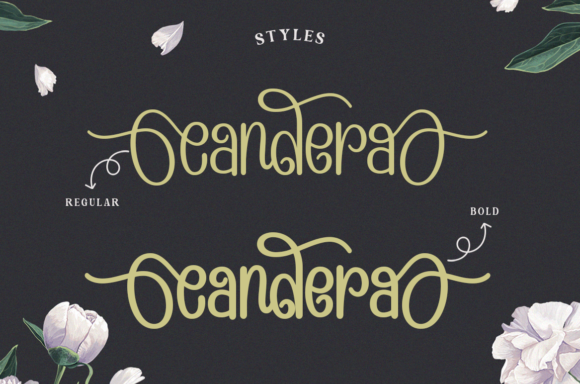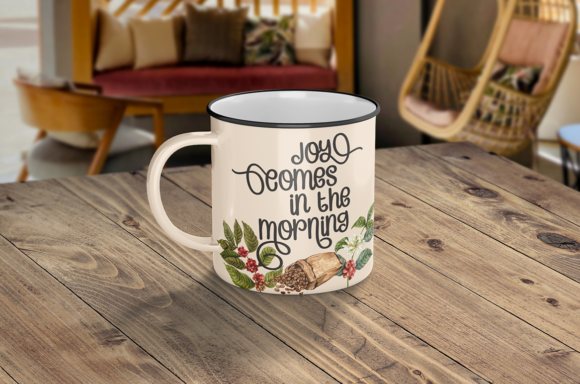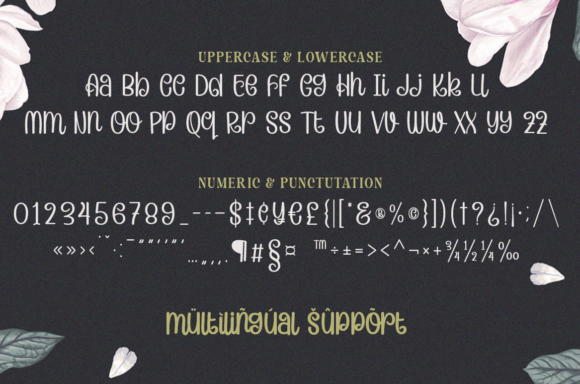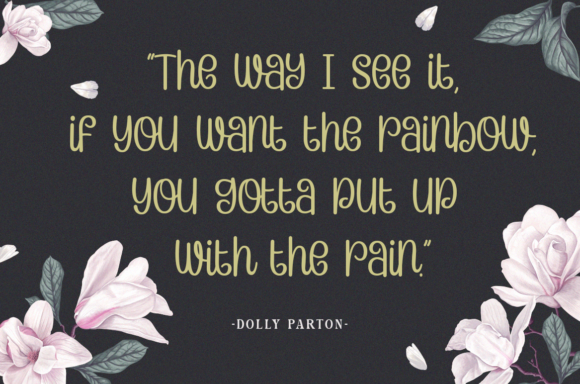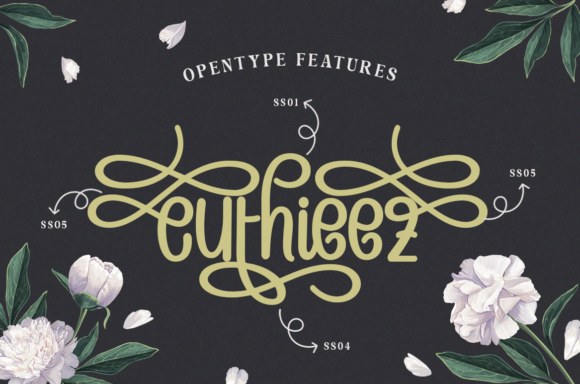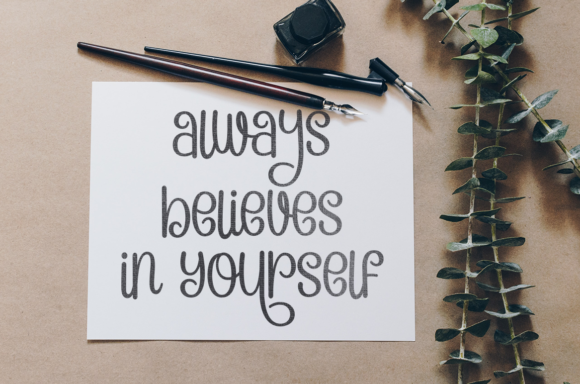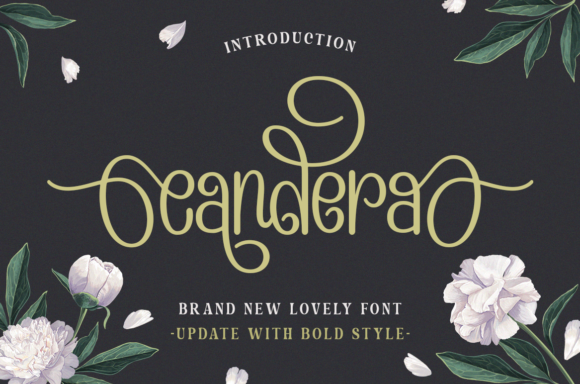
Candera Font: Elevate Your Designs with Elegance and Sophistication
In the world of typography, a font can make or break a design. It’s the perfect blend of style, elegance, and sophistication that can elevate a creation from ordinary to extraordinary. If you’re a designer, crafter, or simply someone who appreciates beautiful typography, then you’re in luck. Introducing Candera Font, a lovely and chic display font that’s sure to become a staple in your font library.
What is Candera Font?
Candera Font is a stunning display font that’s designed to add a touch of elegance and sophistication to any project. Its unique blend of classic and modern elements makes it perfect for a wide range of applications, from branding and advertising to packaging and digital media. Whether you’re working on a logo, brochure, or social media post, Candera Font is sure to make your design stand out from the crowd.
Key Features of Candera Font
- Unique and Elegant Design: Candera Font boasts a distinctive and stylish design that’s sure to capture attention. Its elegant lines and curves make it perfect for creating sophisticated and eye-catching designs.
- Versatile and Adaptable: This font is incredibly versatile and can be used for a wide range of projects, from print materials to digital media. Its adaptability makes it an excellent addition to any font library.
- Easy to Read: Despite its elegant design, Candera Font is surprisingly easy to read, making it perfect for body text as well as headlines.
- High-Quality and Editable: Candera Font is a high-quality, editable font that’s perfect for designers who want to add a personal touch to their work.
Why Choose Candera Font?
So, why should you choose Candera Font for your next project? Here are just a few reasons:
- Adds Elegance and Sophistication: Candera Font adds a touch of elegance and sophistication to any design, making it perfect for high-end brands and luxury products.
- Stand Out from the Crowd: With its unique and stylish design, Candera Font is sure to make your design stand out from the crowd and grab attention.
- Perfect for Branding and Advertising: This font is perfect for branding and advertising projects, where making a lasting impression is crucial.
How to Use Candera Font
- Pair it with Other Fonts: Candera Font pairs perfectly with other fonts, making it easy to create stunning and harmonious designs.
- Experiment with Different Sizes: Don’t be afraid to experiment with different font sizes to create visual interest and hierarchy in your design.
| Font Name | Candera Font |
| Author | Zarma Type |
In conclusion, Candera Font is a lovely and chic display font that’s sure to become a staple in your font library. Its unique blend of classic and modern elements makes it perfect for a wide range of applications, from branding and advertising to packaging and digital media. With its elegance, sophistication, and versatility, Candera Font is the perfect choice for designers and crafters who want to elevate their designs and make a lasting impression.